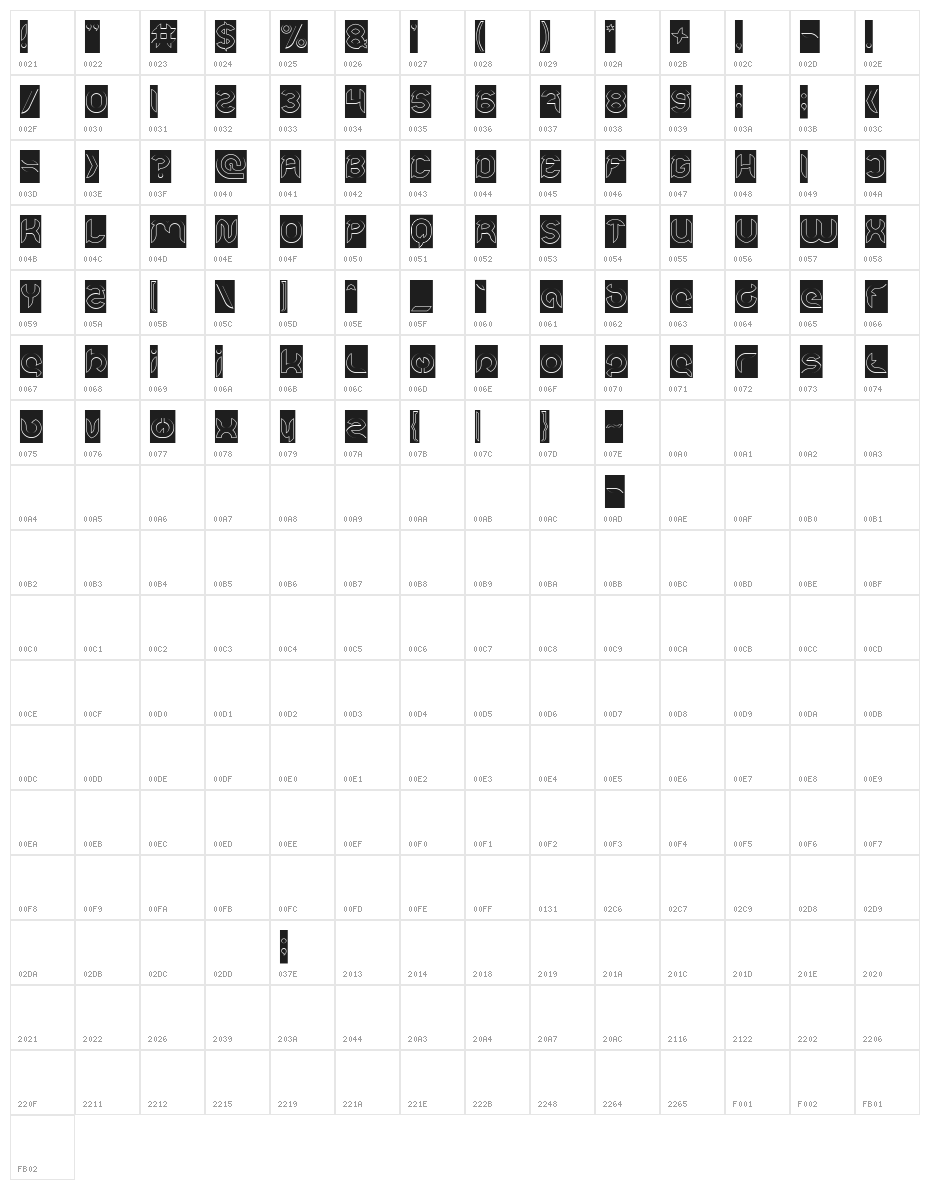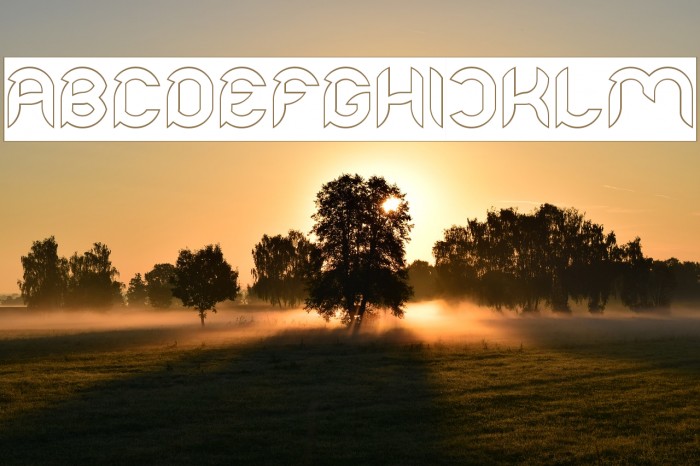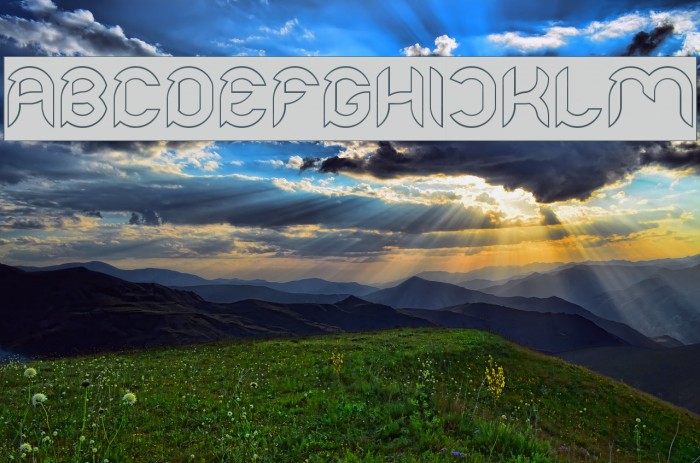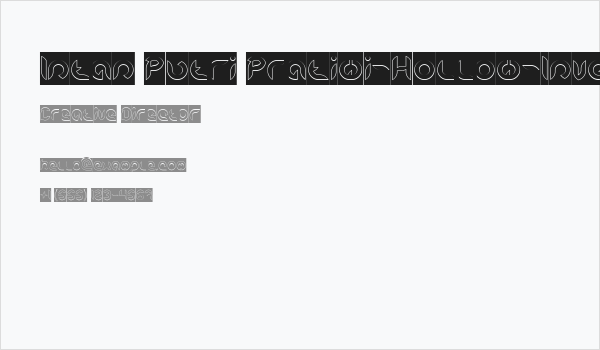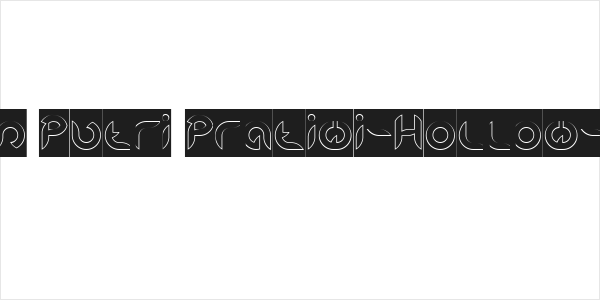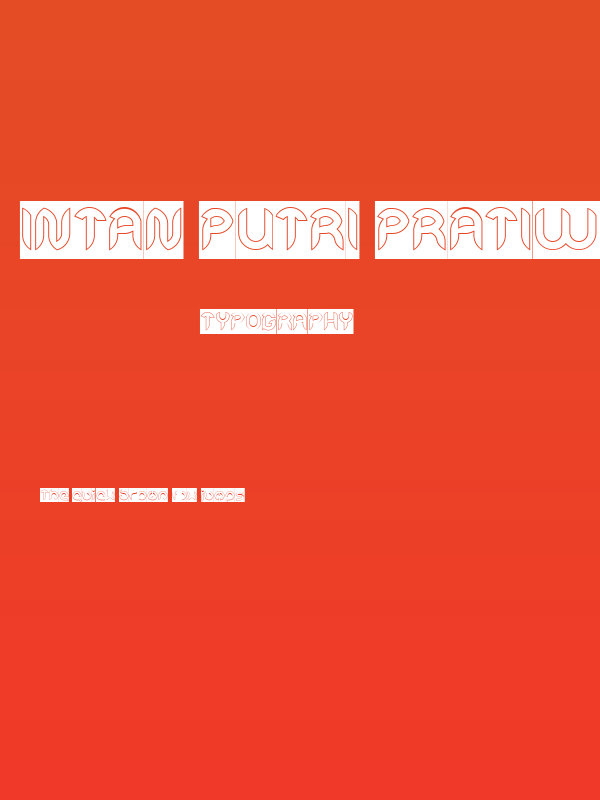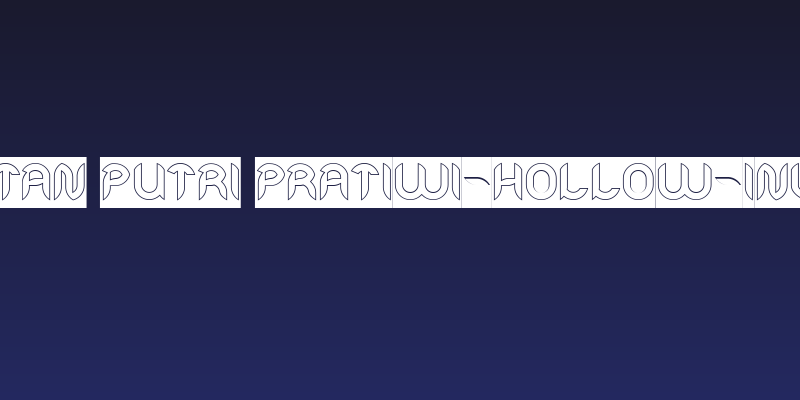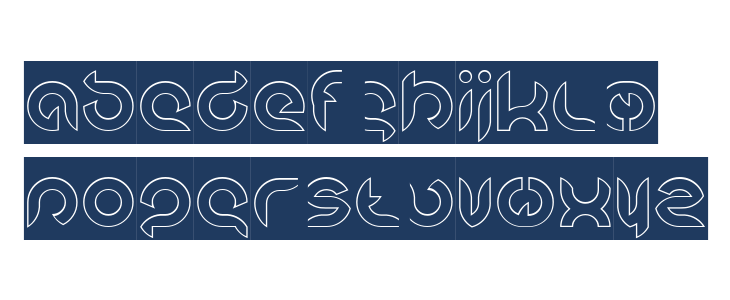
Intan Putri Pratiwi-Hollow-Inve Font
Intan Putri Pratiwi-Hollow-Inve Description
This font features a unique hollow design with a futuristic and geometric style. The characters are outlined with a consistent stroke width, creating a bold and eye-catching appearance. The uppercase and lowercase letters maintain a consistent aesthetic, with angular and rounded elements that give the font a dynamic and modern look. The numbers and special characters follow the same design principles, ensuring uniformity across all glyphs. This font is ideal for projects that require a standout, contemporary typeface with a touch of creativity.
| Proposed Projects | Ideal for sci-fi themed designs, modern branding, posters, and digital artwork. |